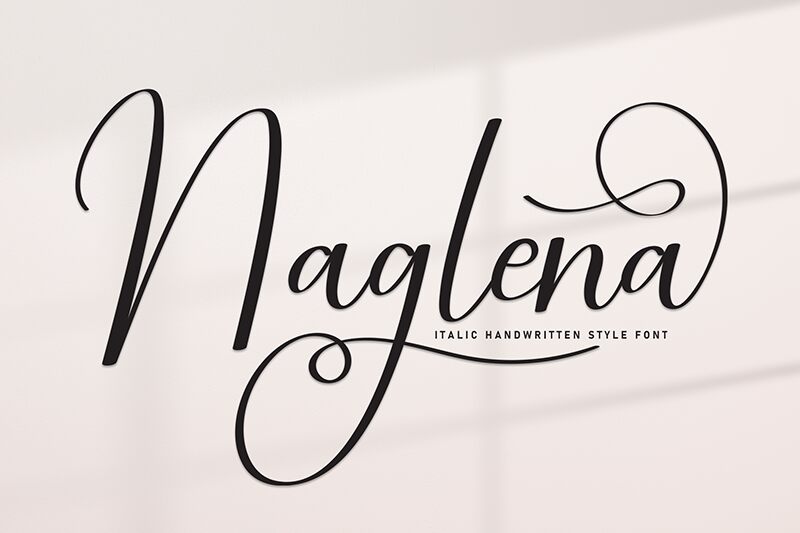
Naglena font is a free handwritten font that beautifully embodies romance and elegance. Stylish and flowing with sophistication and grace, this modern classic font was crafted by Scratchones to allow artists to create their distinctive streaks. This font family of 1 font style is soft and polished, giving it a natural look and a balanced appearance for stunning designs.
It suits various creative projects including invitations, stationery art, social media posts, logos, posters, and more. The font is highly readable and will turn your ideas into impeccable arts. Additionally, this artistic type can be used for signatures and creating watermarks.